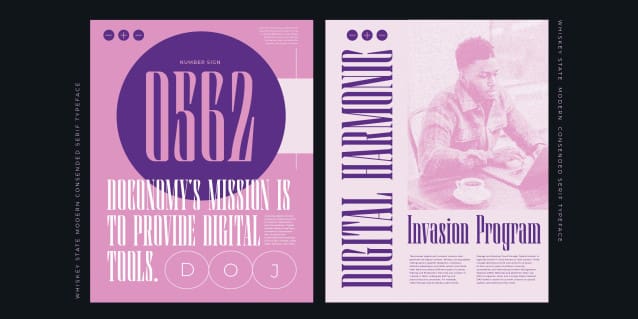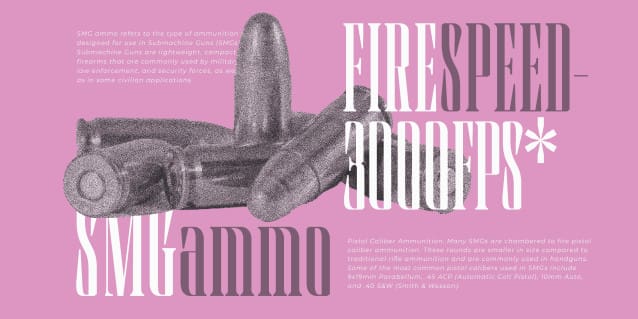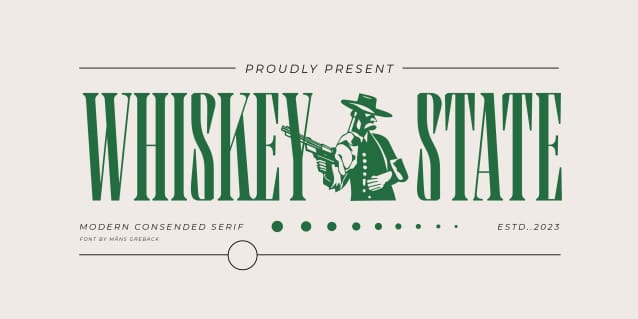
Whiskey State Font
Whiskey State Font strides onto the canvas like a cowboy entering a saloon: Tall, confident, and impossible to ignore. Every letter stands upright and proud, imbued with the spirit of the Old West, with contemporary stylistic touch.
Use characters { } [ ] to make symbols such as lions, eagles and revolvers.